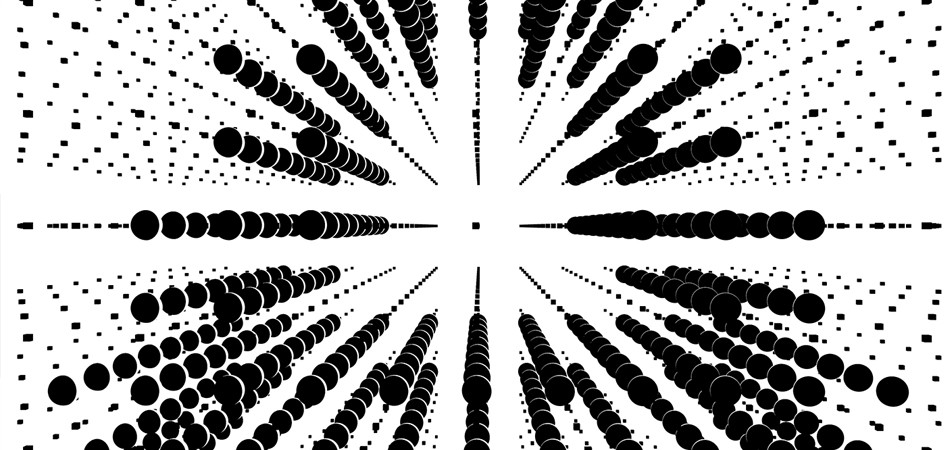
Ran Zheng wants us to feel, look and hear typography in miraculous ways
I come from China, I got a BFA degree in visual communication at Central Academy of Fine Art (CAFA) and I have just graduated from Maryland Institute College of Art at MFA Graphic Design program” says Ran Zheng, a creative thinker who amazed us with her over-the-top thesis work at Maryland institute college of Art. For her the passion for typography is a consequence of reference. “Because of the difference between Chinese characters and English letters, I have a passion for type design. Different style of typography can carry different messages, emotions, similar to images, but in a more subtle way” she adds.
“I have always been interested in the topic of synesthesia and I wanted to explore typography together with sound” Zheng told Typeroom of her LOOK/HEAR project which explores the relationship between scenes and soundscapes, looking and hearing. “A system of aural and visual signals generates shifting typographic forms and triggers associations about people and environment”.
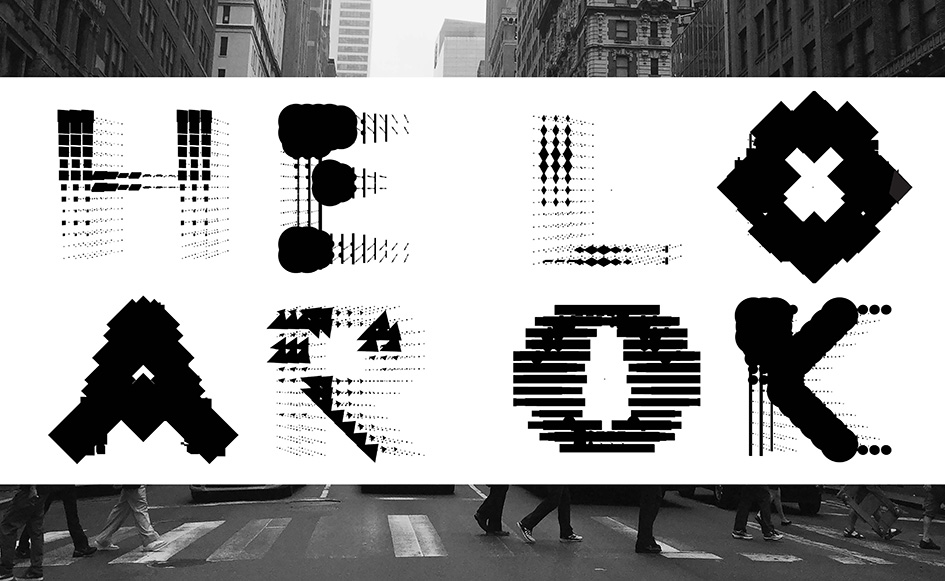
“I call architecture frozen music and I like to call type forms frozen sound. In order to built a connection between typeface and sound, I designed a complete visual system based on the sound data. You can see how different sounds manifest as dramatic shifts in shape which then change the appearance of the actual letter.
I created a 15 by 15 two-dimensional square grid and drew letters on the grid to create one single letter, and then used a 3D software to draw letters into a 3D space, repeating the letter into 9 layers, and then, I input the different 3D shapes to the letters into the grid. when the sound started, each point would affect the size and forms of the specific point on letters, and then, when the 9 layers of letters mixed together based on each sound, it would show different styles of the forms based on real time and situation.
In order to show how different the letters could be based on different situations, I chose 5 sound scenes from our familiar everyday life: a park, a street, a cafe, a subway and an office. And then selected the pair of word: “look and hear” to show the change of letters.
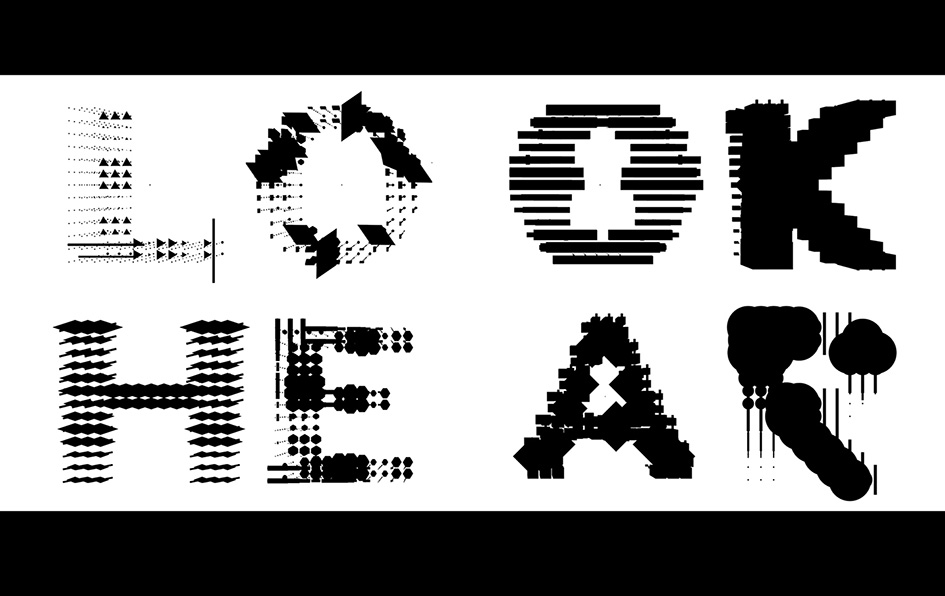
For the letter sculpture, the material is black hard paper. I folded 68 3D object which from the system I created to build the letter “O” as the beginning of my exhibition. I want to give the visitor a 3D perception. And then, a flat screen just beside the sculpture, it is an interactive screen that can analyse the sound from the surroundings and shows different shapes based on sound frequency. People in the exhibition space can play with the interactive screen.
Visitors can provide any sound even music to make interactive responsive forms of a work “LOOK”. And in the middle of the space is my main 3D typeface animation. It includes 5 different sound scenes which generates shifting typographic forms. A big sound dome in the front of the animation and an “O” signage on the ground give visitor a clear sound quality. Besides the video, I printed 80 different “O-shapes” and specific time which I select from the animation and mount them on the 80 black boards using fish line to connect them together to build a pattern and process wall.
In the exhibition, there are two books that I put in different exhibition locations, The small book is just 6"x 6" and it shows the basic system and letter forms. This book just under the interactive screen, and when visitors play with the screen, they can also read the book and see the system that can let them get better understanding the project. The big books shows the list of the sound and the different Static frame of the typeface.
This project still has a lot of possibilities to explore, not just the shapes but also the color and texture of the letters”.